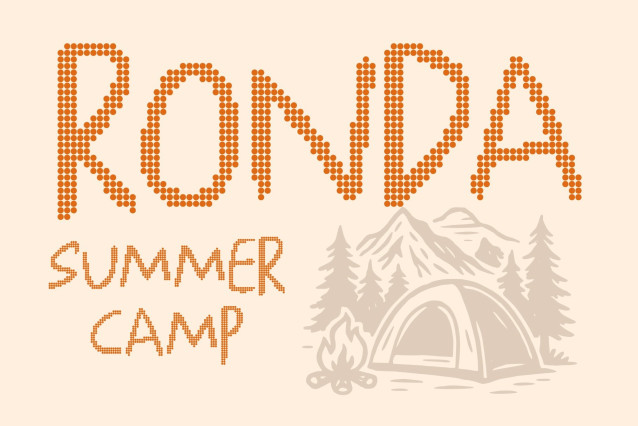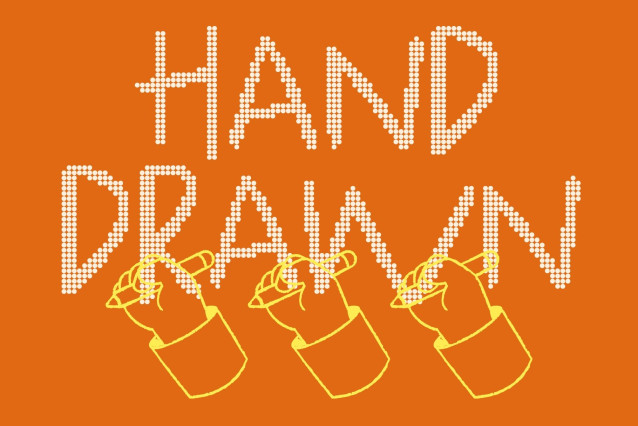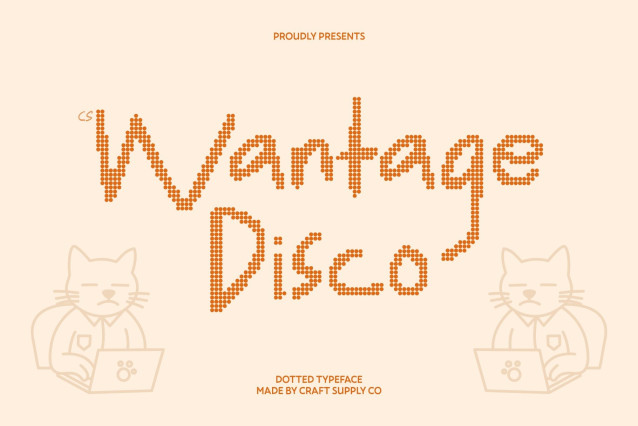
CS Wantage Disco Font
CS Wantage Disco – Fun Font with Playful Personality and Irregular Look
Vibrant Typography with Youthful Disco Energy
This playful display font evolves into a lively disco dot edition, radiating joy, spontaneity, and dance-floor excitement. Its friendly sans-serif shapes and irregular rhythm are enhanced with sparkling dotted texture, transforming every letter into a cheerful burst of motion and light.
Irregular Shapes with Handcrafted Disco Charm
The uneven strokes and imperfect rhythm create an authentic hand-drawn feel, now energized with shimmering dot details. This playful combination adds movement and personality, making the typography feel lively, animated, and full of fun party vibes.
Perfect for Youthful and Cheerful Designs
From kids’ branding and educational materials to fun event posters and social media graphics, this font brings an inviting and upbeat atmosphere. The dotted disco styling amplifies happiness and positivity, turning simple text into joyful visual celebration.